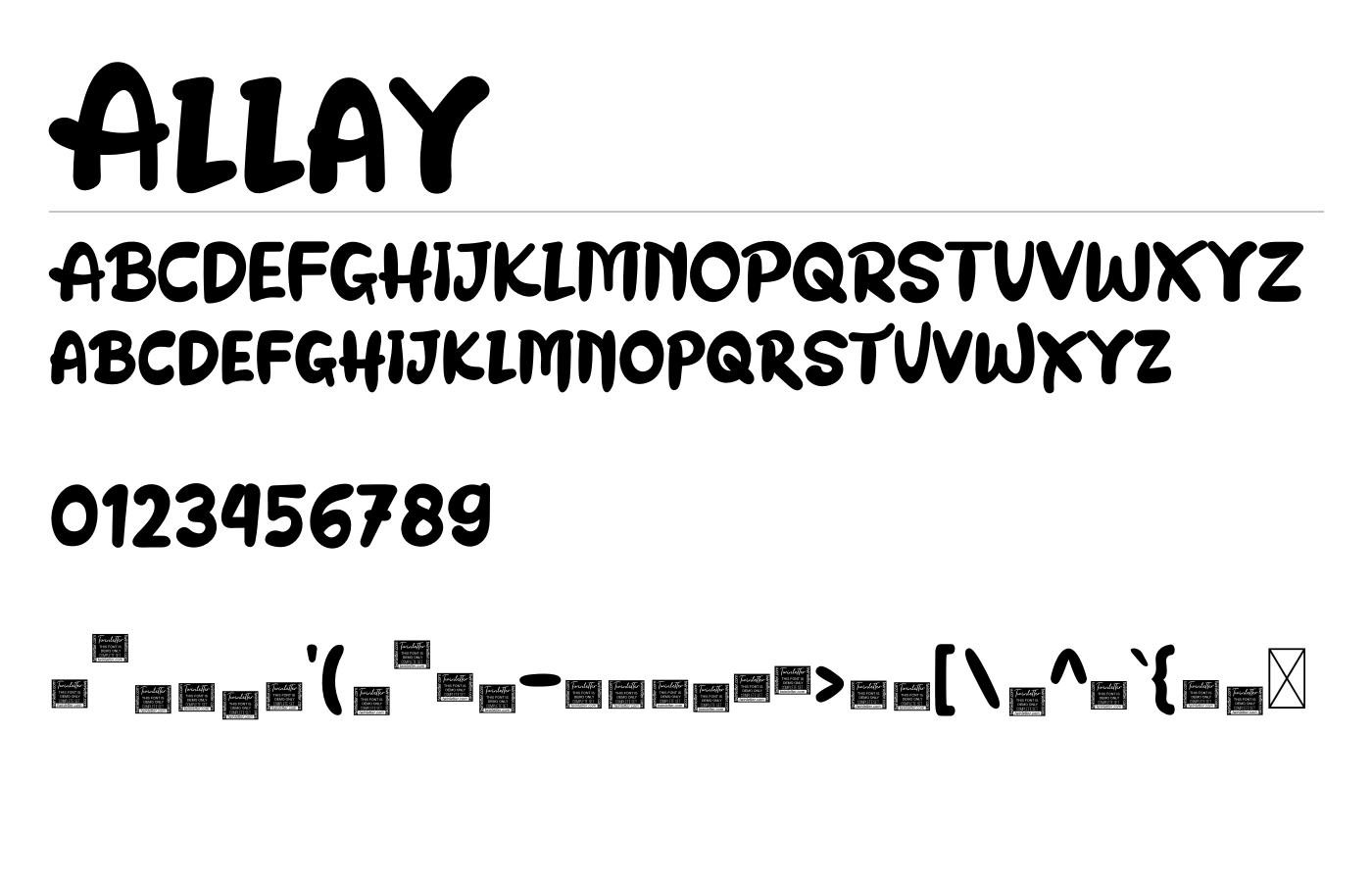
Allay is a bold, playful sans-serif font with rounded, soft edges that give it a friendly and approachable character. Its generously wide letterforms and lively strokes make it perfect for casual branding, children's materials, or any design seeking a warm and informal feel. This font works especially well for headlines, logos, and packaging where a fun and inviting impression is key.
Allay Font
About Allay Font
| Font family | Allay Font |
| Designer | Rozi |